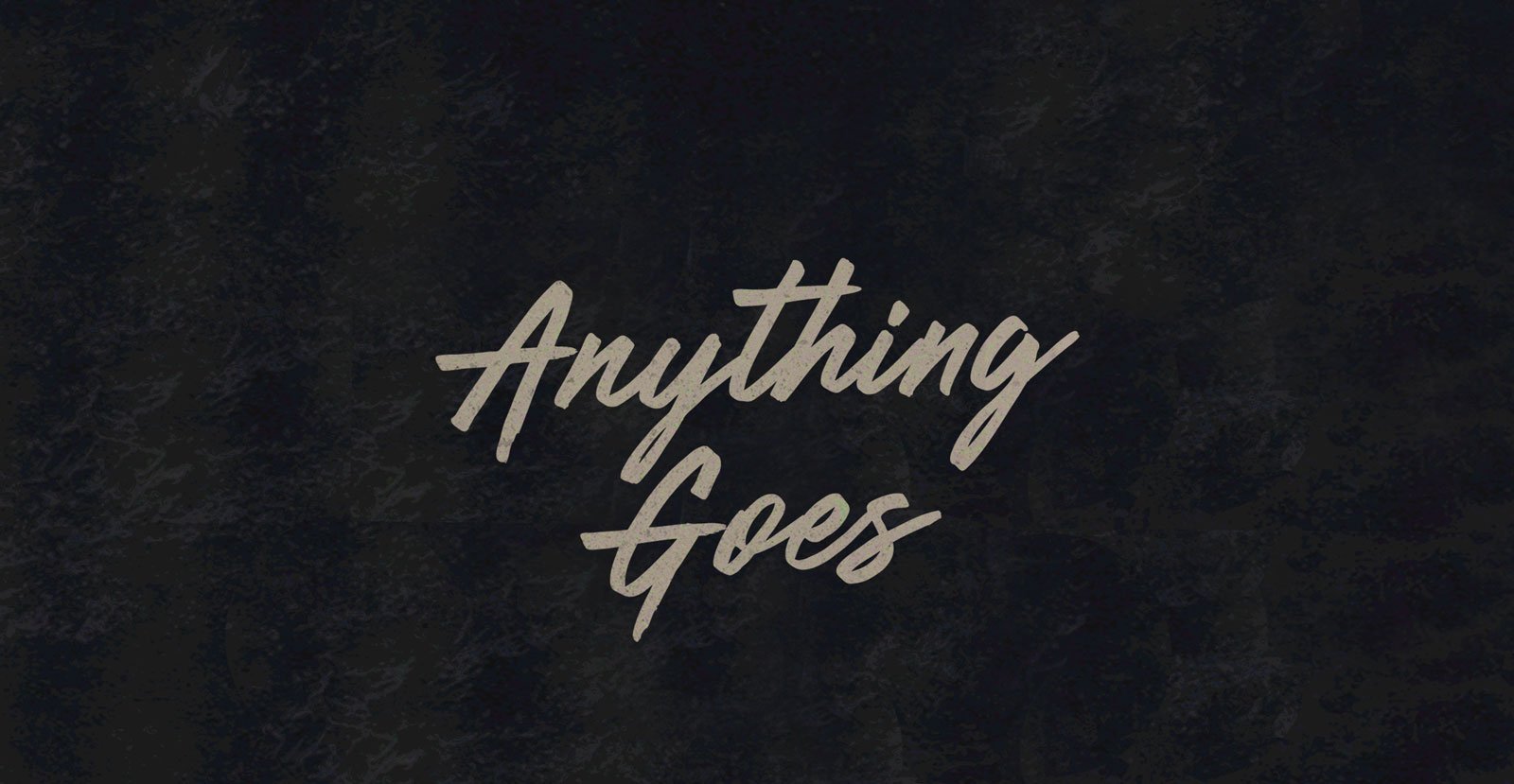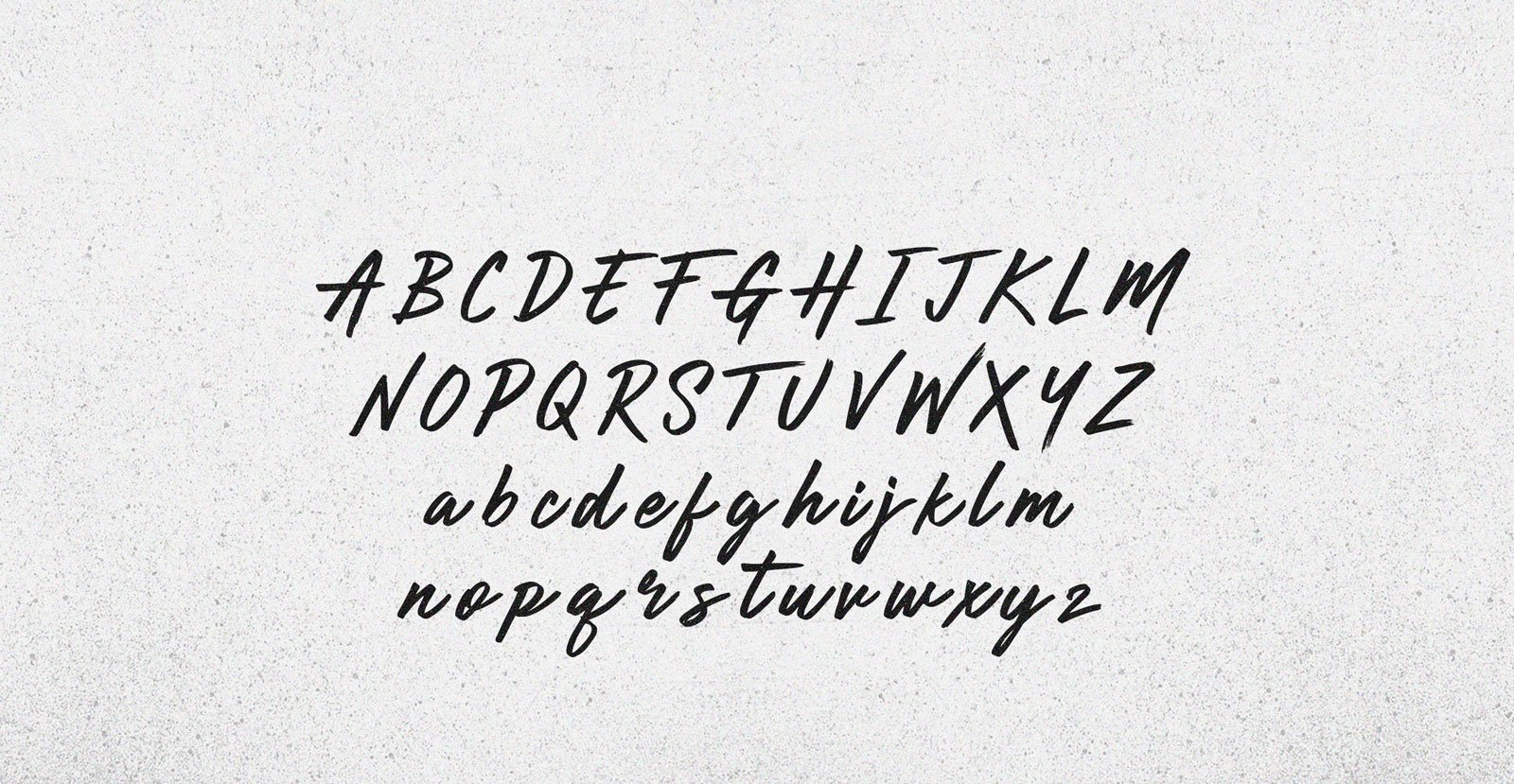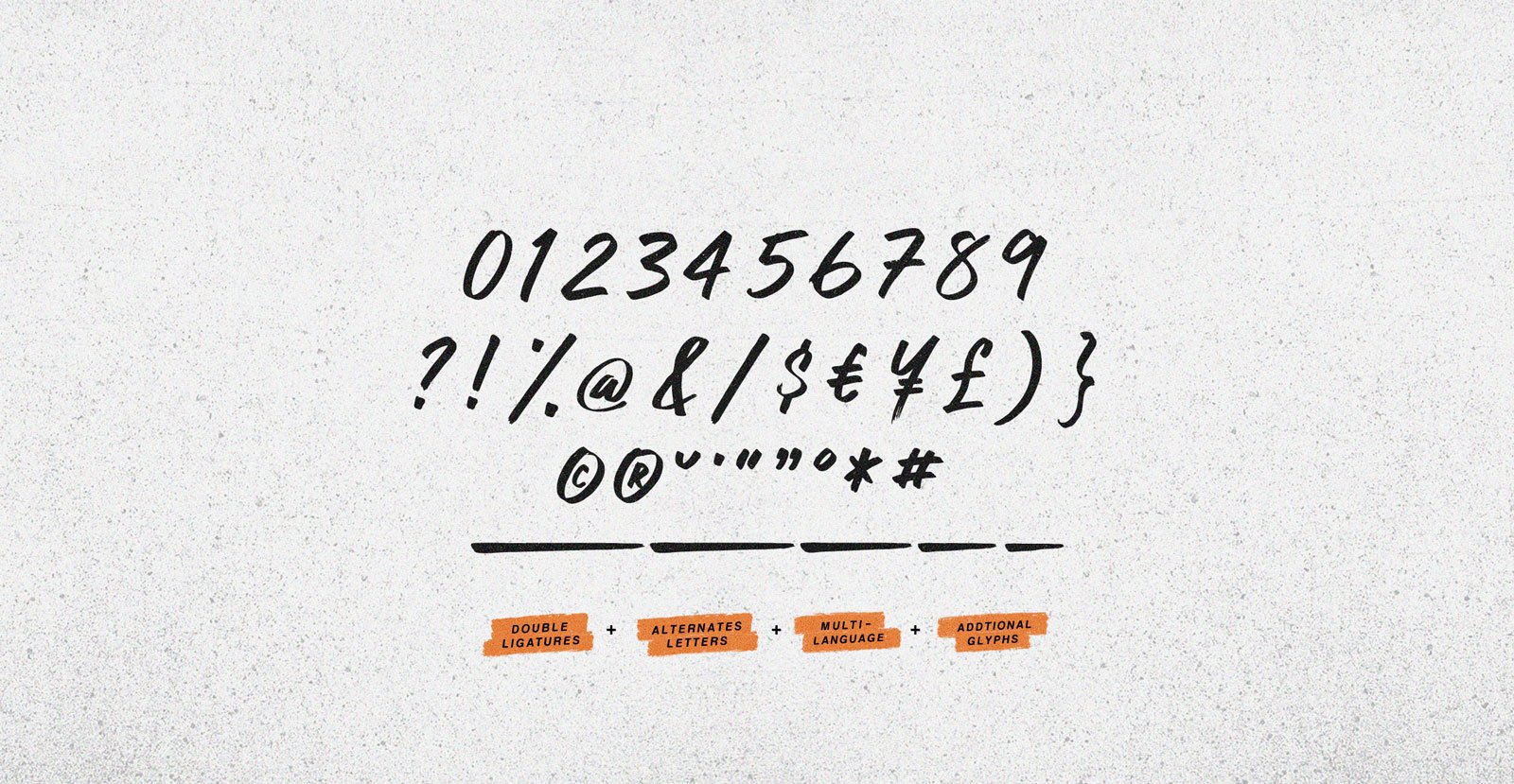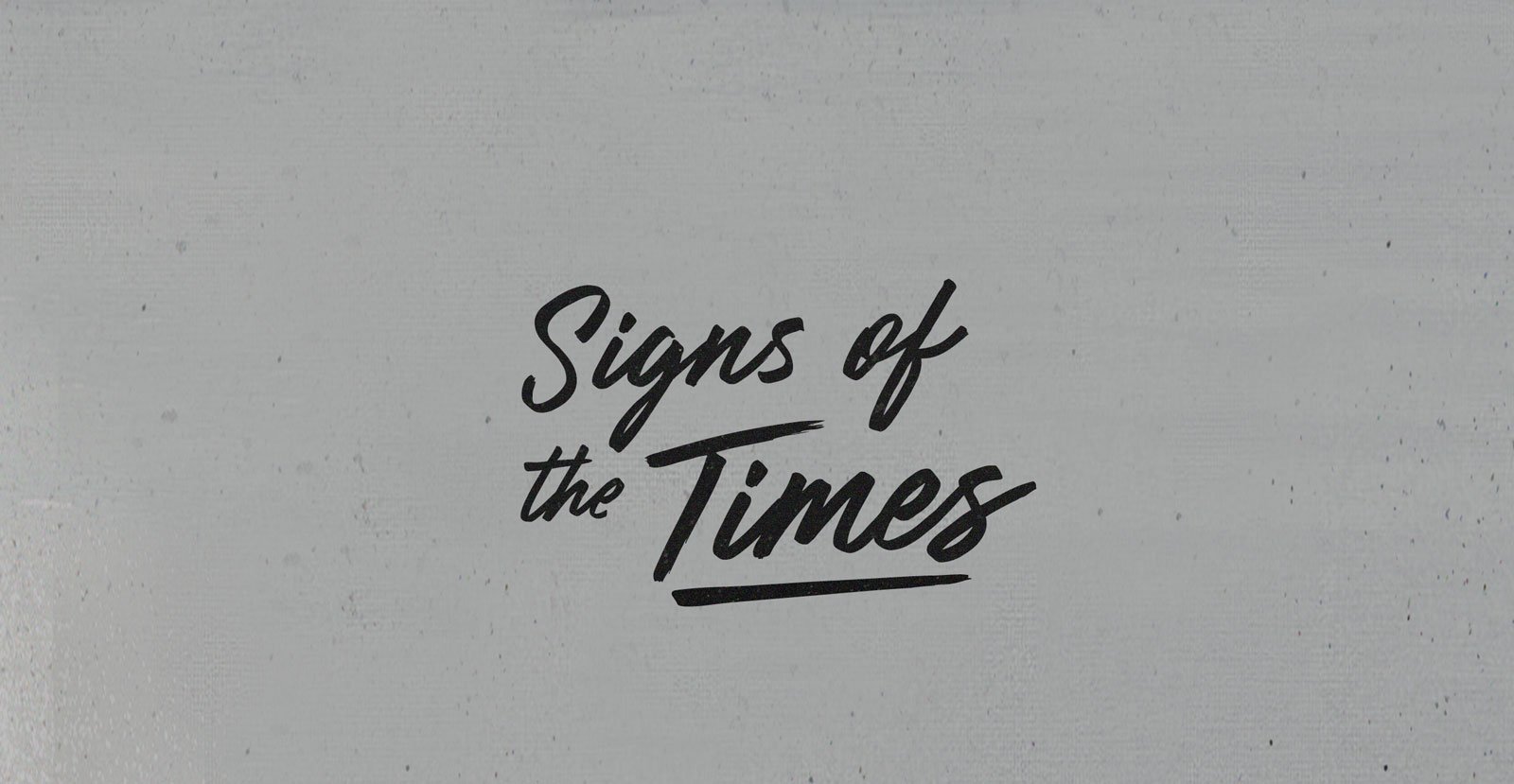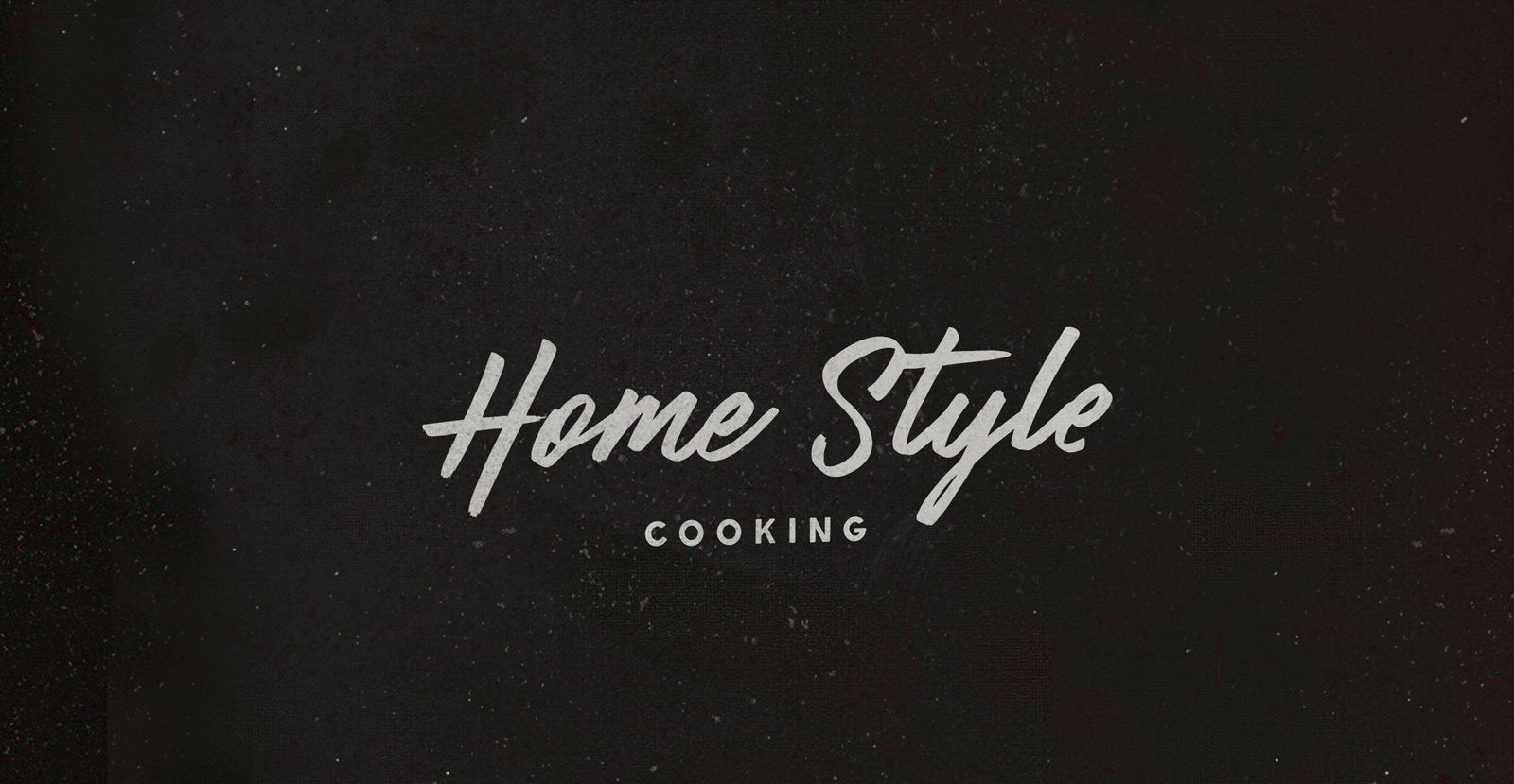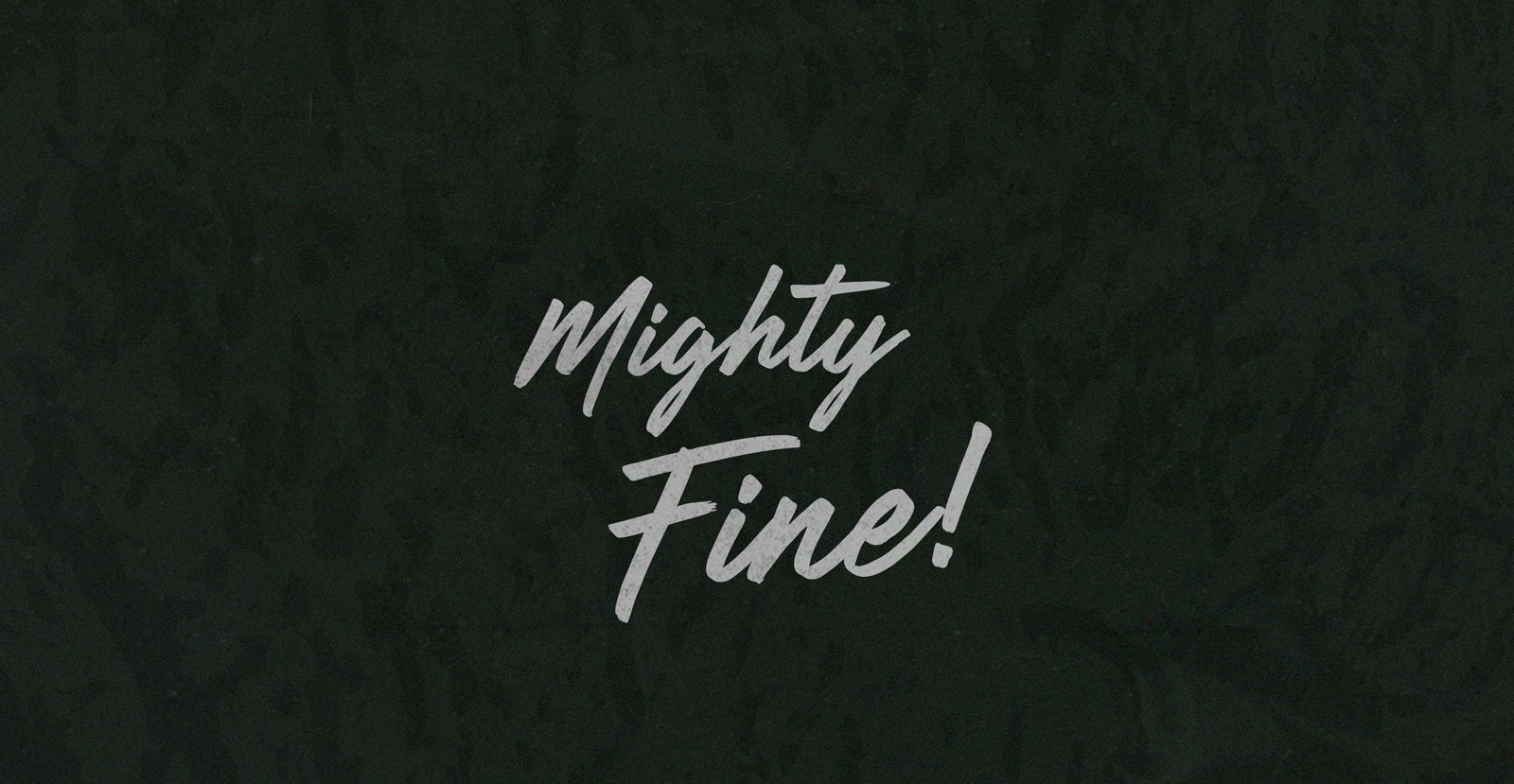
Anything Goes
Get a grip on the next great gadget, next-level helicopter parents droning on and on about something--meaning anything--going around and around like Anything Goes in an orbit around a greater center of gravity.